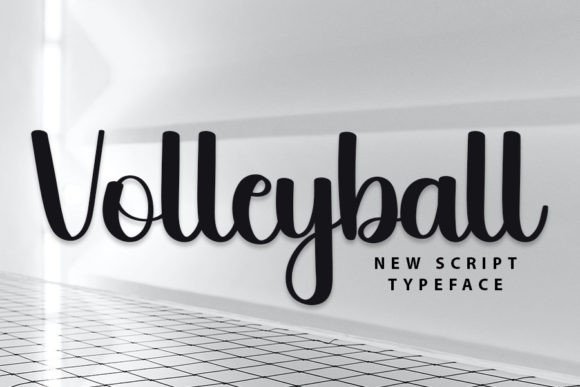
Introducing Volleyball Font, the epitome of beauty and refinement in the world of script fonts. Created by Inermedia STUDIO, this stunning typeface is the perfect choice for those seeking the best font for beauty products. With its classy, elegant, and modern look, Volleyball Font will elevate your designs and captivate your audience like never before.
Whether you're designing a logo, crafting a brand identity, or planning a special occasion, Volleyball Font is your ultimate companion. Its graceful strokes and exquisite curves exude sophistication, making it an ideal choice for high-end beauty and cosmetic brands. Imagine the luxurious packaging, the elegant lettering on your product labels, and the enchanting beauty of your promotional materials. Volleyball Font has the power to transform your brand into a true masterpiece.
But the versatility of Volleyball Font doesn't end there. This versatile script font is equally at home in the world of weddings and events. Create stunning invitations that will leave a lasting impression on your guests. Craft personalized stationery that showcases your unique style and elegance. With Volleyball Font, your wedding designs will radiate romance and refinement, setting the perfect tone for your special day.
In the era of social media domination, Volleyball Font ensures that your posts stand out from the crowd. Grab the attention of your followers with captivating quotes, inspirational messages, or product announcements that exude style and creativity. Let the beauty of Volleyball Font shine through your social media presence, leaving a lasting impact on your audience.
When it comes to choosing the perfect font for your e-commerce collection, Volleyball Font is a no-brainer. Its eye-catching appeal, combined with its keyword-rich nature, ensures that your products are presented in the best possible light. Whether you're selling beauty products, accessories, or fashion items, Volleyball Font will effortlessly enhance your product descriptions, making them irresistible to potential buyers.
In summary, Volleyball Font is not just a script font; it's a gateway to a world of beauty, elegance, and modernity. From logos to invitations, social media posts to branding, this font has the power to captivate and inspire. Unlock the full potential of your designs with Volleyball Font and witness the magic unfold.